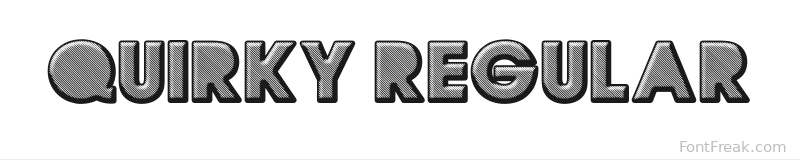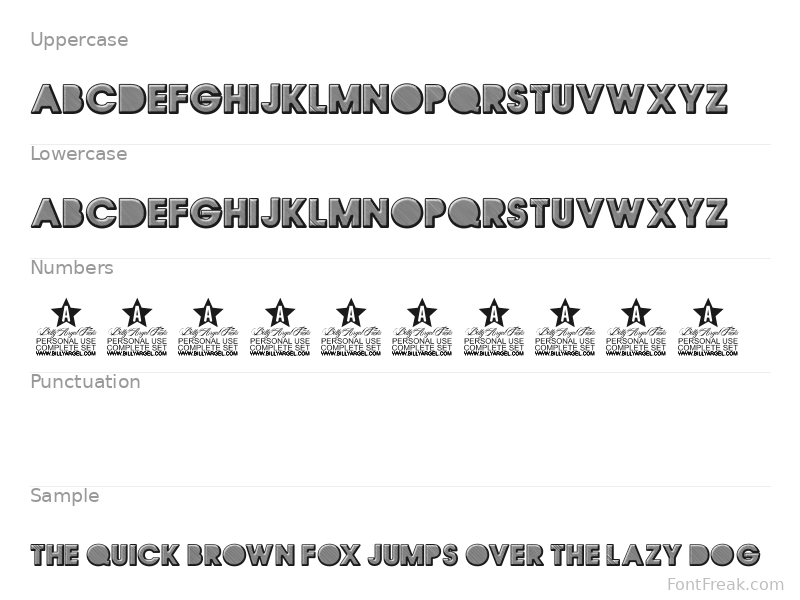
QUIRKY Regular by Billy Argel Fonts is a distinctive display typeface that effortlessly combines playfulness with readability. This font features a unique style that stands out due to its rounded edges and bold strokes, giving it a friendly and approachable appearance. The stroke weight is consistent, which contributes to its clean and modern look, while the generous spacing between letters enhances legibility, making it an excellent choice for various design projects.
The visual characteristics of QUIRKY Regular include a slightly exaggerated letterform that adds a whimsical touch, perfect for capturing attention. Its lack of sharp angles and its rounded forms create a harmonious, soft aesthetic, making it suitable for both casual and formal applications. The decorative elements, though subtle, contribute to its overall charm without overwhelming the viewer.
QUIRKY Regular is ideal for a range of creative uses. It works wonderfully for playful wedding invitations, where a touch of fun is desired, and is equally effective on movie posters, drawing eyes with its engaging style. Restaurant menus can also benefit from this font, lending a unique character to the establishment's branding. Additionally, it serves well in children's book covers and educational materials, where maintaining engagement is key.
Target audiences for this font include graphic designers looking to add a quirky touch to their projects, small business owners seeking to establish a memorable brand identity, and content creators in need of eye-catching typography for their digital content.
What sets QUIRKY Regular apart is its delightful balance of fun and functionality. This font not only stands out visually but also remains practical for various applications, making the QUIRKY Regular font free download an excellent choice for anyone looking to elevate their design work.